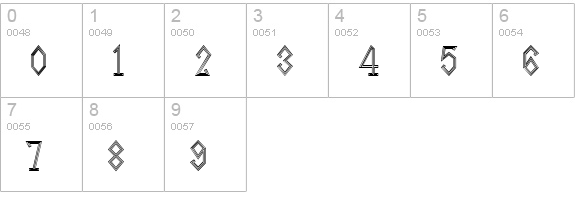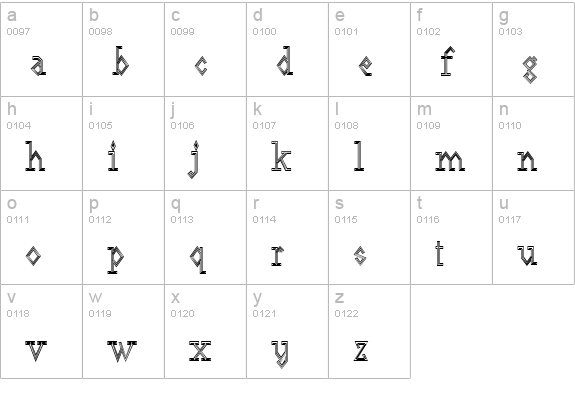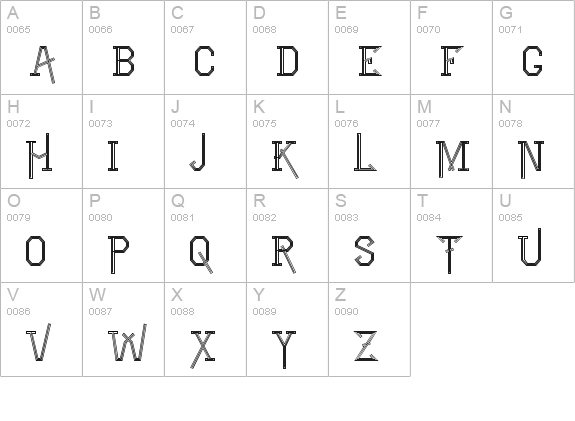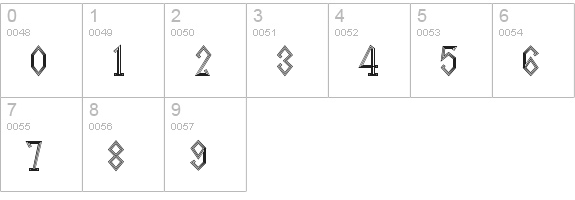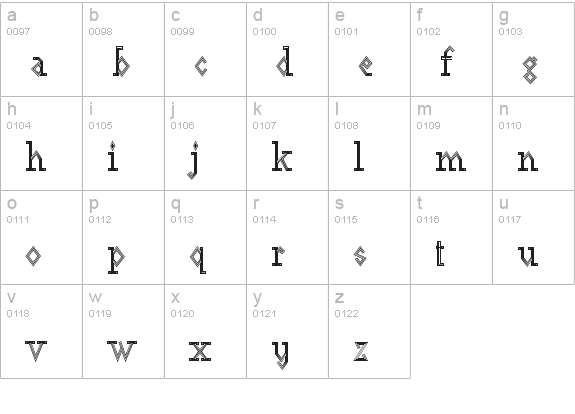
LineDriveOutlined Font Details
LineDriveOutlined font is a sleek and modern typeface that exudes confidence and professionalism. Its clean lines and sharp angles make it perfect for adding a contemporary touch to any design project. The outlined style gives it a dynamic and eye-catching look that will make your text stand out. Whether you're creating a logo, poster, or website, LineDriveOutlined font will give your work a distinctive edge. And the best part? LineDriveOutlined font is completely free to download at FontsMarket.com. So you can elevate your designs without breaking the bank. Don't miss out on this fantastic opportunity to enhance your projects with this stylish and versatile font. Download LineDriveOutlined today and take your design game to the next level!